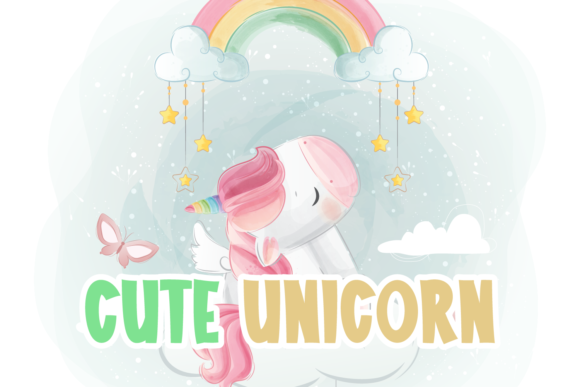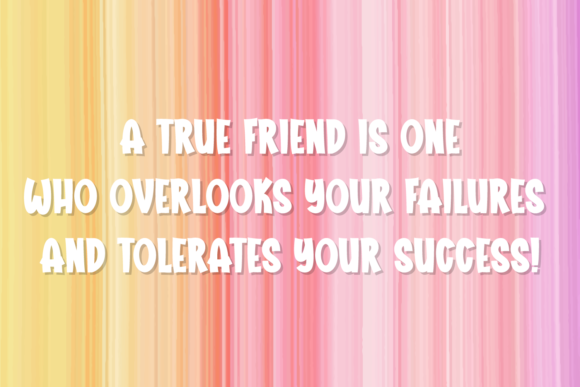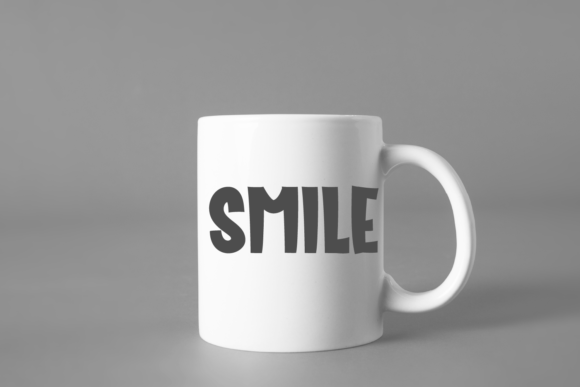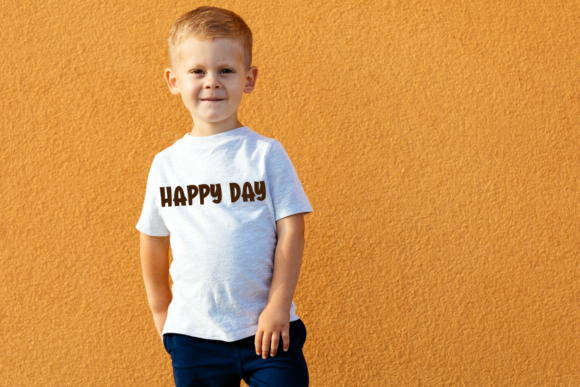
Introduction to Rainbow Comic Font
Have you ever been working on a creative project and wished you had the perfect font to bring it to life? I know I have. There’s something magical about finding that one font that just clicks, and for me, that font is the Rainbow Comic Font. Its bold, thick letters are like a breath of fresh air, adding a touch of whimsy and fun to any design.
As a designer, you know how hard it can be to find high-quality fonts that are both free to download and versatile enough to use on a transparent background. But the Rainbow Comic Font is a game-changer. With its unique style and playful feel, it’s the perfect design resource for any creative project, from cartoon-related designs to children’s games.
Key Features of Rainbow Comic Font
- Unique Color-Changing Effect: The Rainbow Comic Font features a dynamic color-changing effect, perfect for creative projects that require a playful and eye-catching design.
- High-Quality Design: This font is designed with high-quality graphics, making it ideal for use in various design projects, such as logos, posters, and digital art.
- Transparent Background: This font includes a transparent background option, allowing designers to easily integrate it into their creative projects and maintain a seamless look.
- Large Character Set: The Rainbow Comic Font includes a large character set, including uppercase and lowercase letters, numbers, and special characters, making it a versatile design resource.
- Perfect for Digital Art: With its vibrant colors and playful design, the Rainbow Comic Font is perfect for use in digital art, animations, and other creative projects that require a fun and engaging visual style.
Honest Review: Rainbow Comic Font
I recently came across the Rainbow Comic Font and I must say it’s quite an interesting addition to any design project. The font is available for a free download, which is always a plus when it comes to creative projects.
One of the standout features of the Rainbow Comic Font is its high quality design. The font is crisp, clean, and visually appealing, making it perfect for any design resource that requires a bit of whimsy.
Some of the things that work well with this font include:
- Its versatility – it can be used for a variety of creative projects, from posters to social media graphics
- Its transparent background, which makes it easy to layer over other designs
- Its playful, yet professional aesthetic
- ⚠️ Limited character set – the font may not be suitable for projects that require a wide range of special characters or symbols
- ⚠️ Not suitable for formal or corporate designs – the font’s playful aesthetic may not be suitable for more serious or professional projects
Overall, the Rainbow Comic Font is a fun and creative design resource that can add a bit of personality to your projects. While it may have some limitations, it’s definitely worth considering for your next design project. ✨
Tips for Getting the Most Out of Rainbow Comic Font
Use Rainbow Comic Font with a transparent background for a high-quality, eye-catching design. Experiment with different font sizes and colors to create a unique and creative project.
Rainbow Comic Font is a versatile design resource ideal for children’s books, educational materials, and creative projects. Its playful and colorful style makes it perfect for adding a touch of whimsy to your designs.